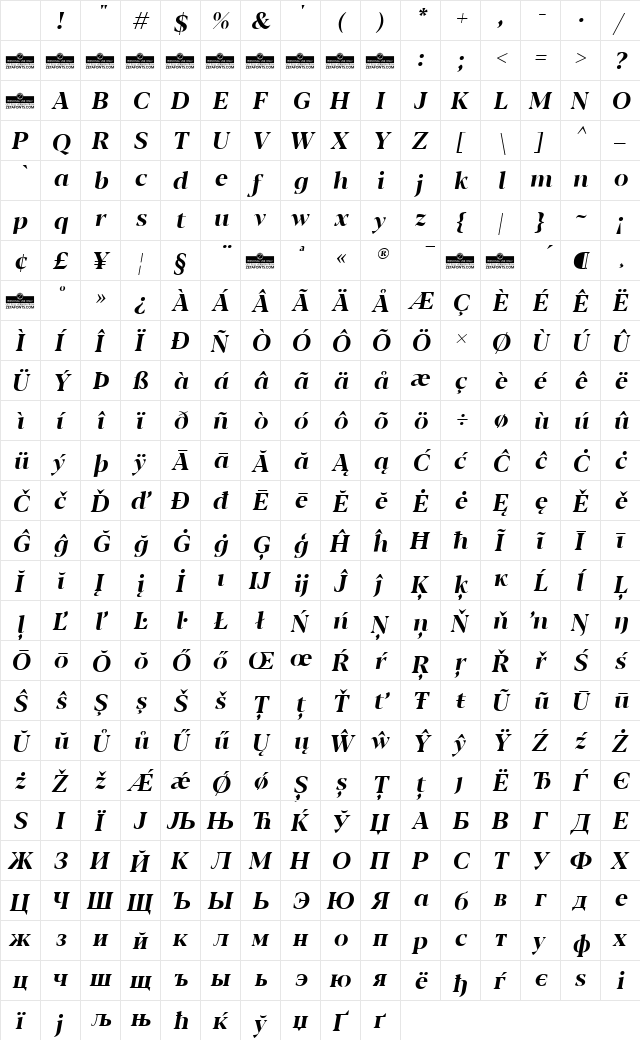
Complete Blacker Display Bold Italic glyph index. Displaying only characters natively supported by Blacker Display Bold Italic font.
Blacker Display is built around its visual character rather than neutral utility - its distinctive forms are designed to make an impression at display sizes. The slanted form adds forward momentum and visual energy. Its bold stroke weight gives it real presence on the page.
Font Pairing: Pair with a clean neutral sans-serif for body copy to let Blacker Display's character lead without overwhelming the composition.
Pro Tip: Use Blacker Display exclusively at display sizes - it was designed to be seen, not read at length. Let a neutral companion handle body copy.